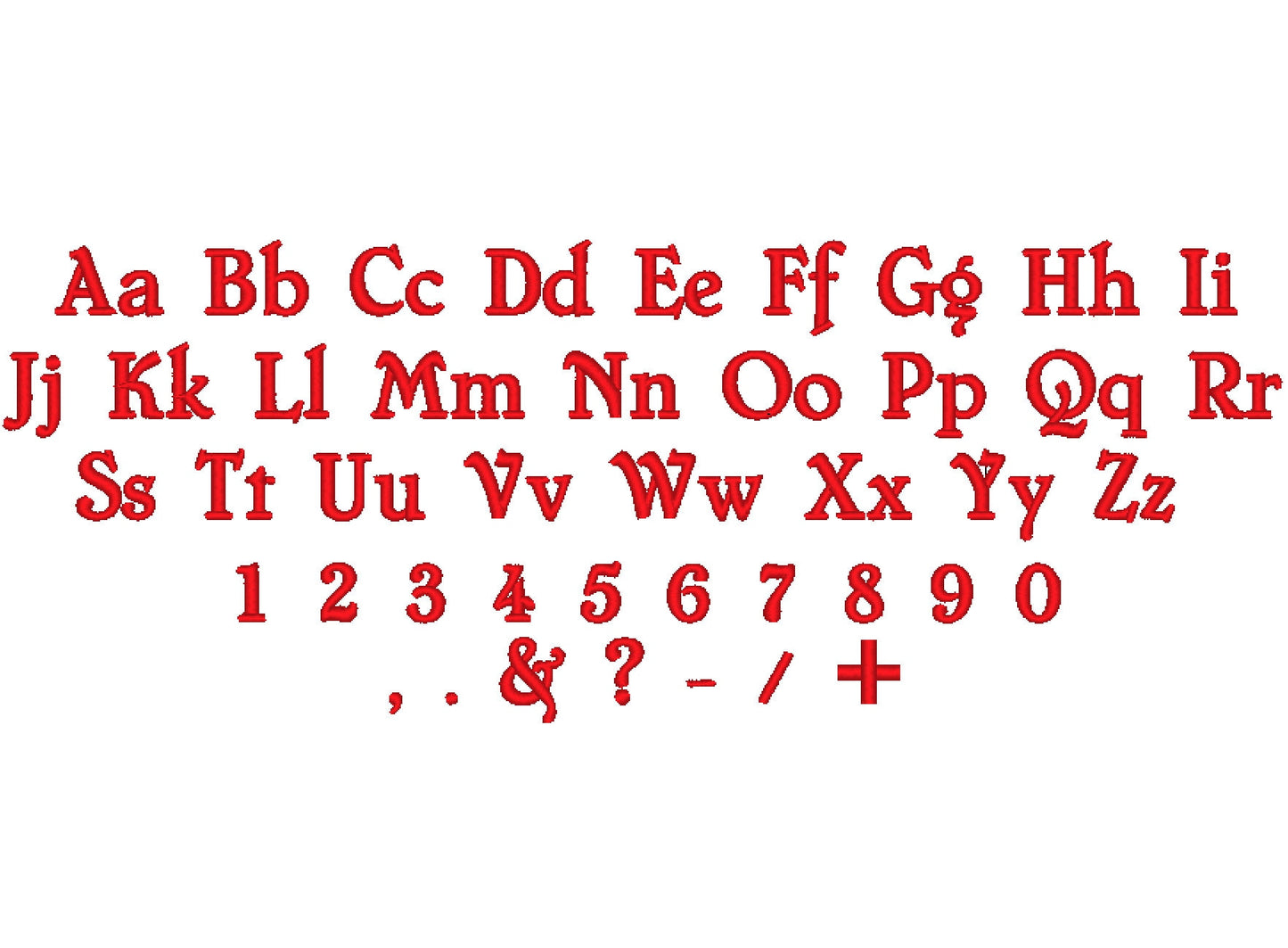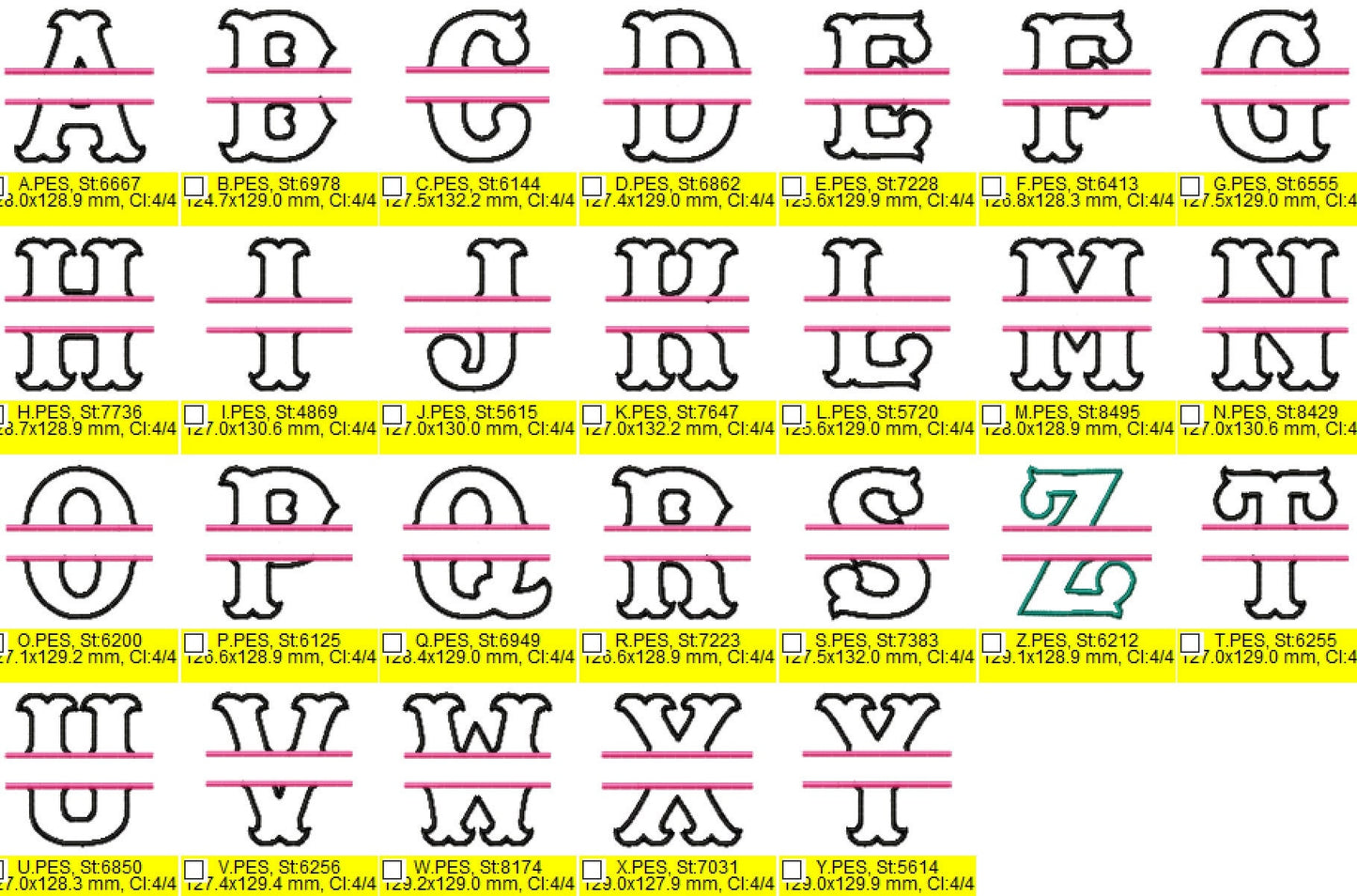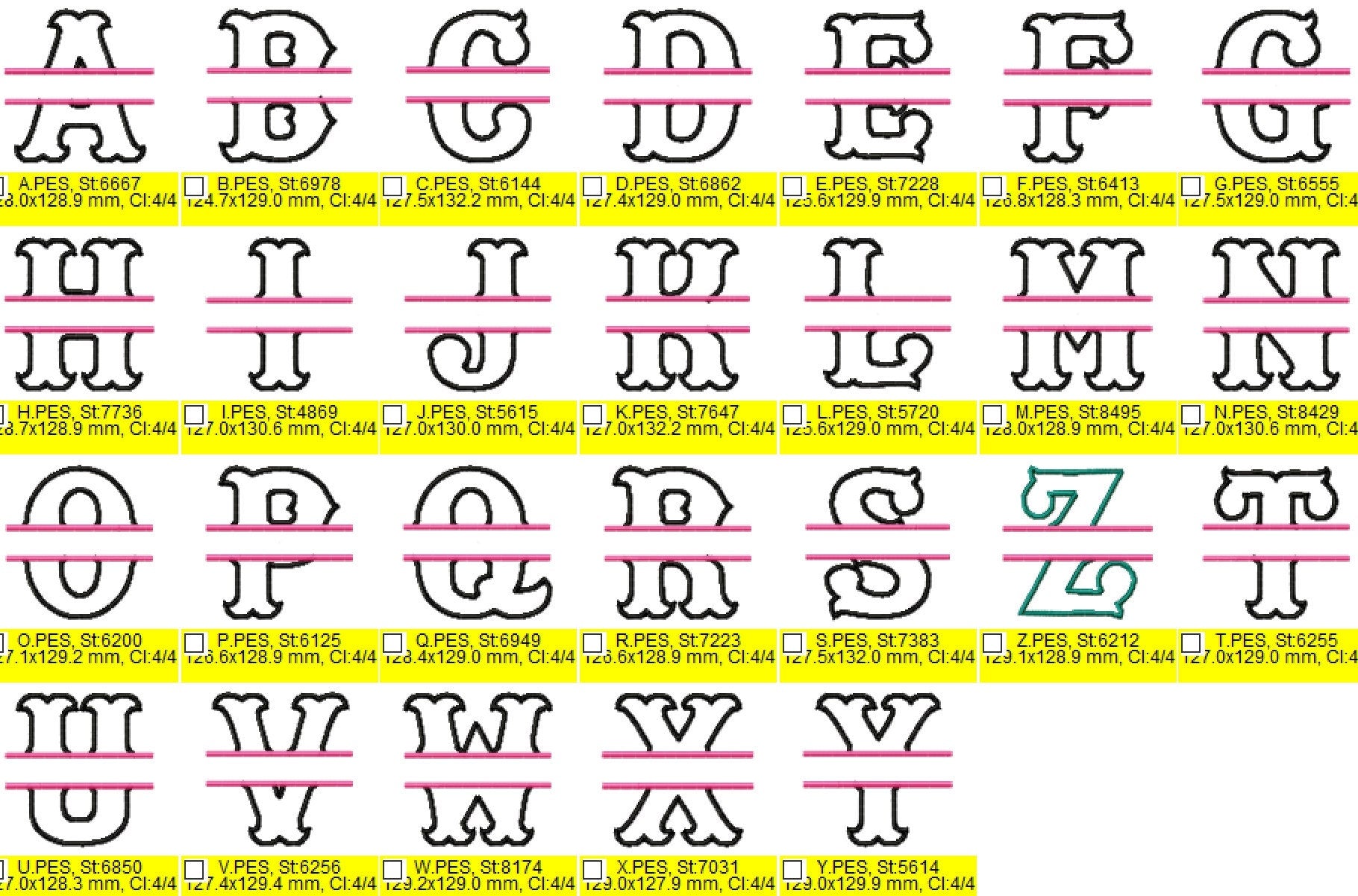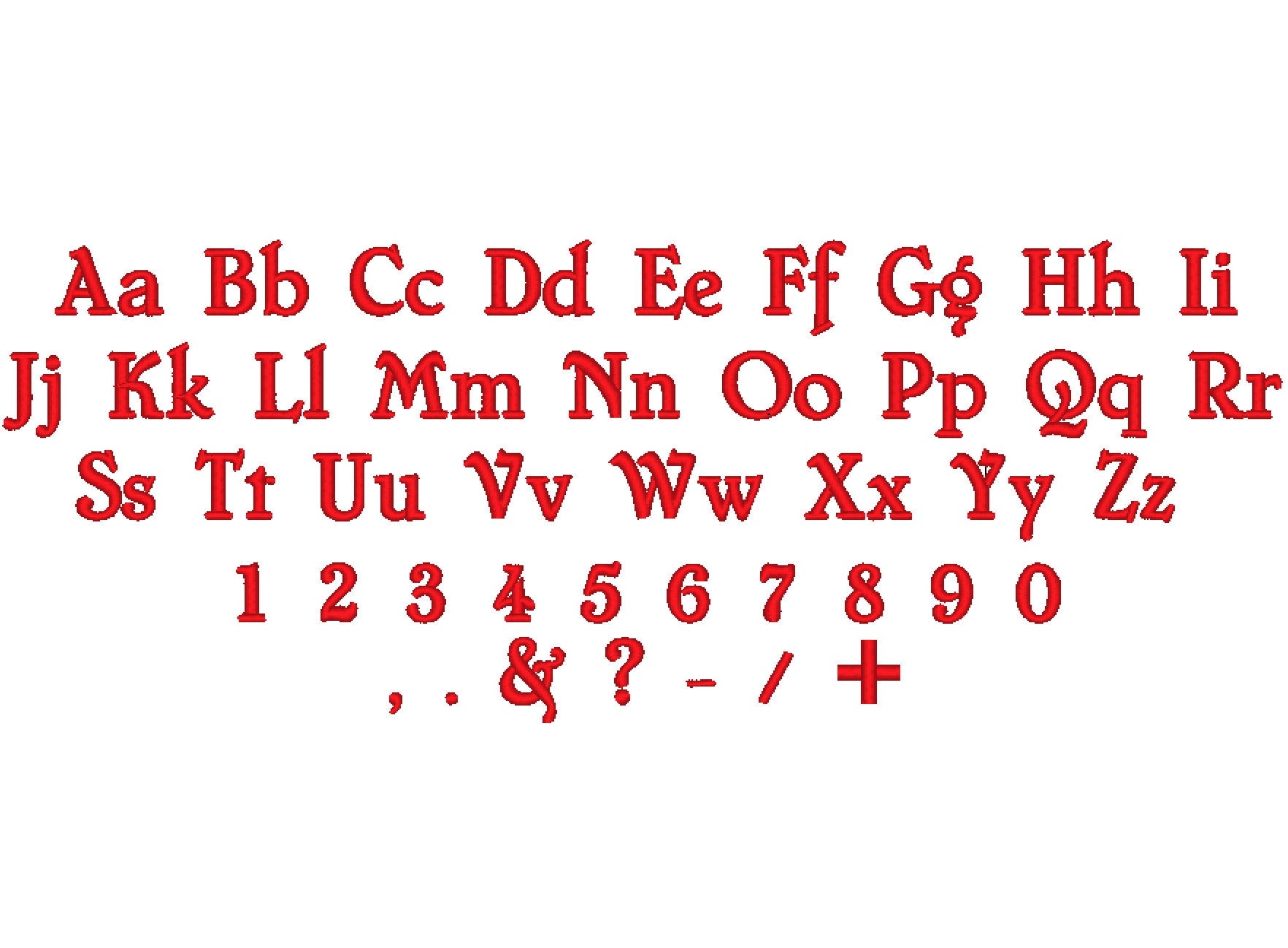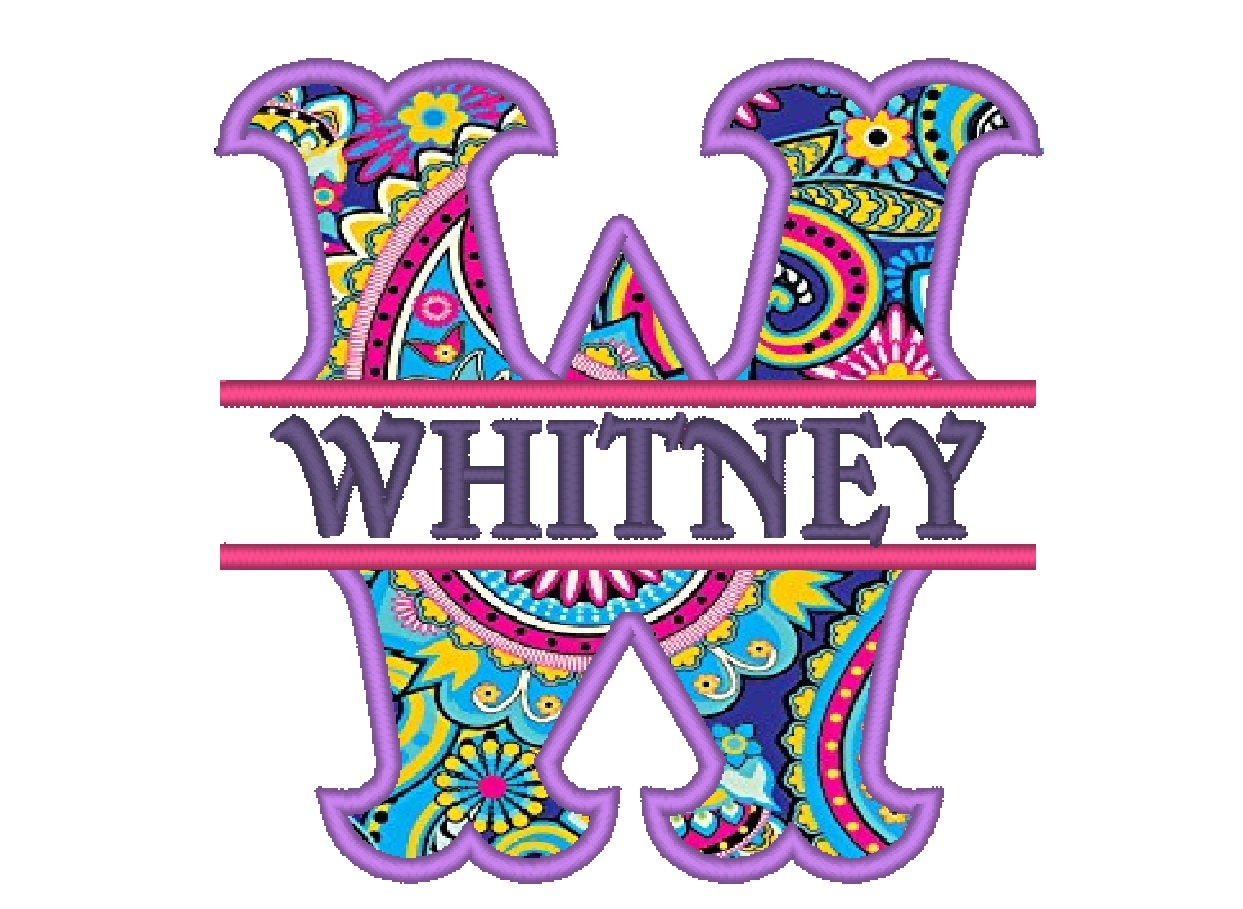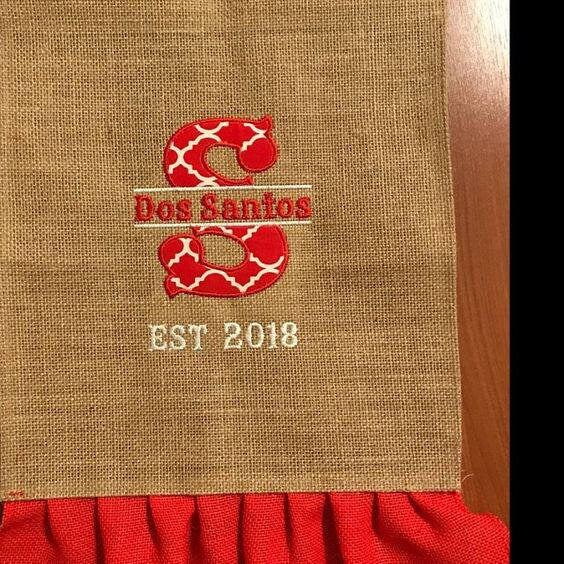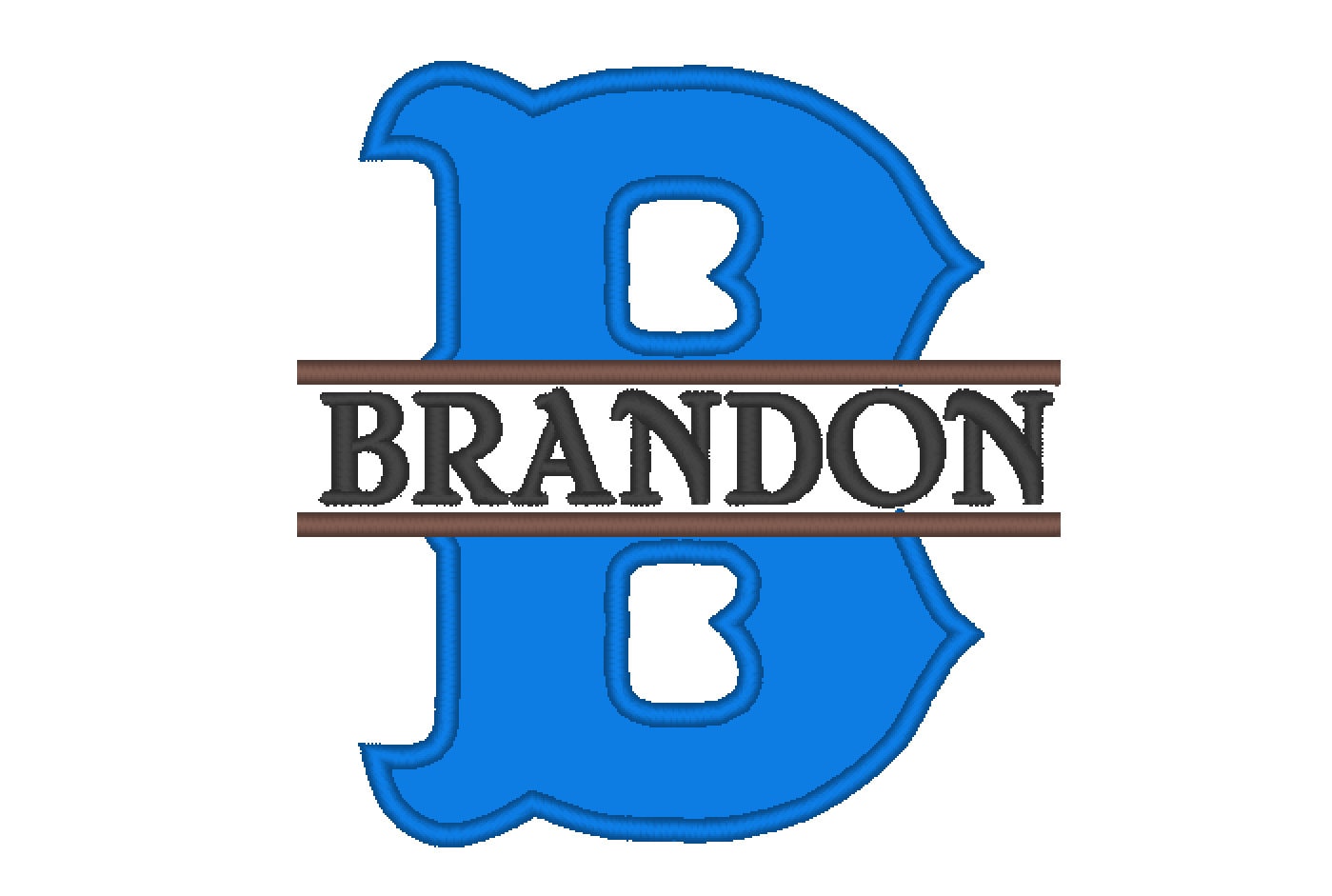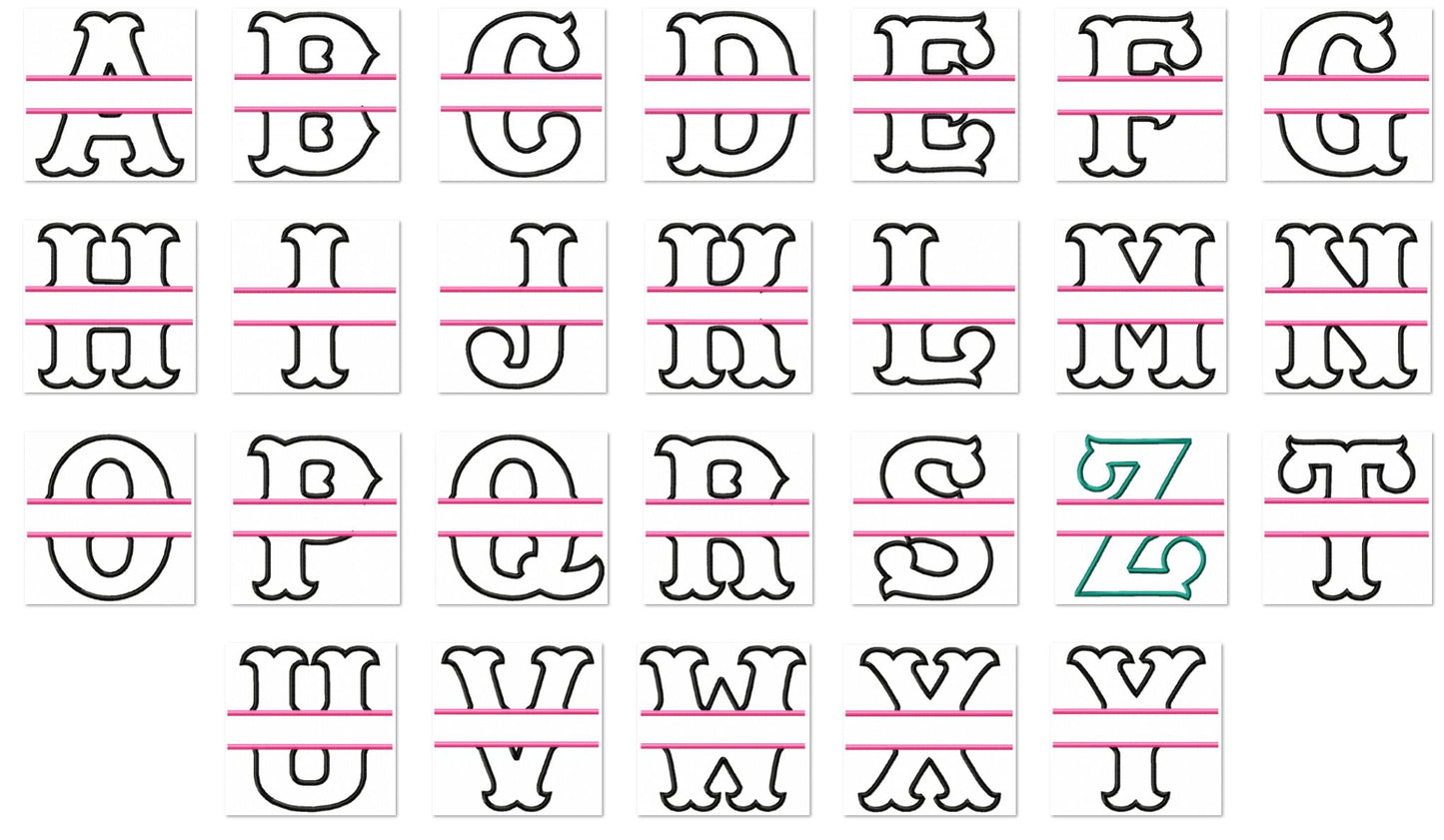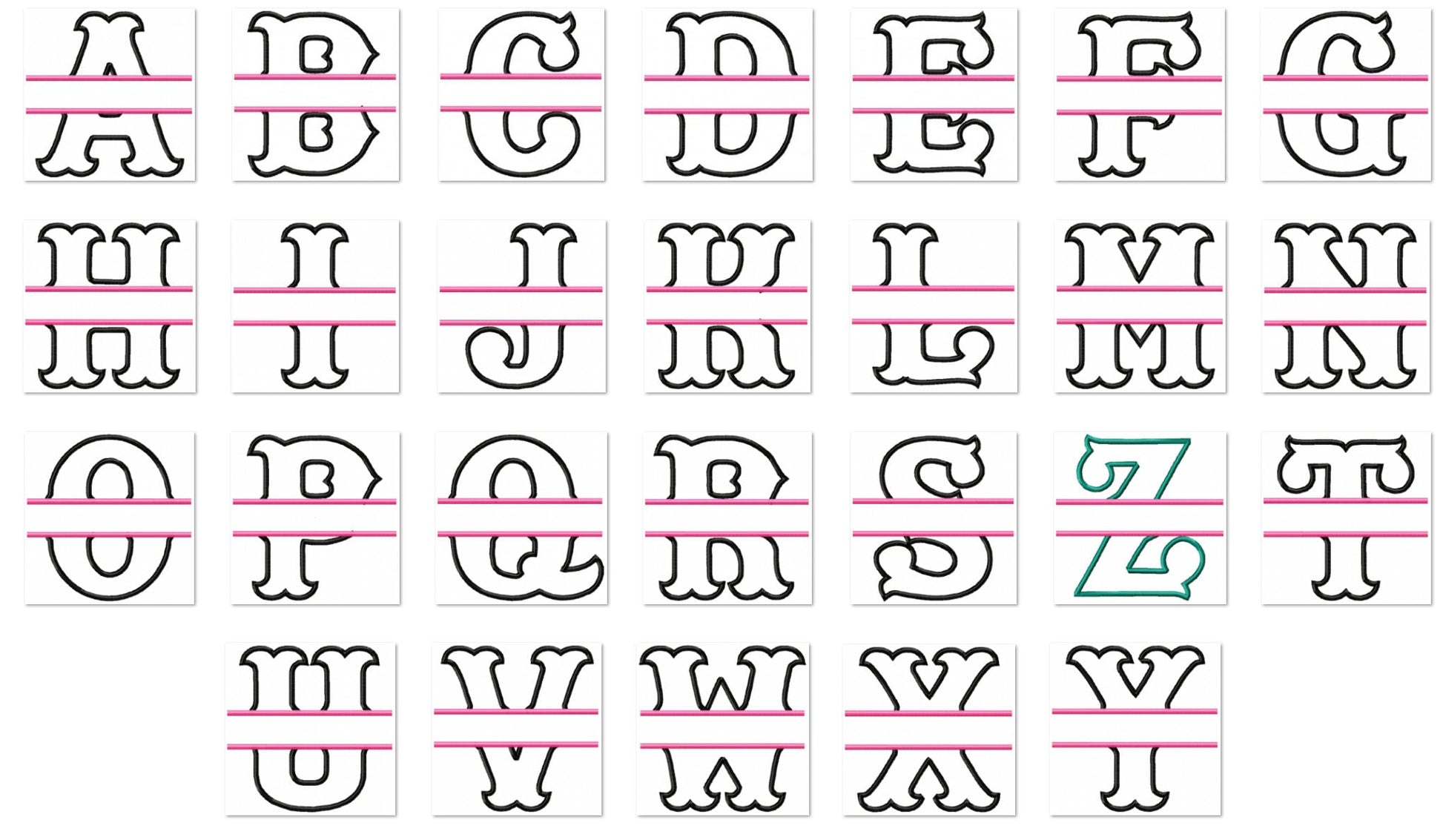
Thank you for the Split -`font embroidery appliqué. It looks great on my book bags for the kids.
BELLISSIMO
Ganz tolle Stickdatei
My clients absolutely love this applique. I've used it on several items including blankets.
Looks great! Wish I could get it smaller too!
I did this design on an apron for my niece for her birthday and she loved it.. Thanks
Love the designs. Will buy again.
Loved the way this came out! One of my favorite designs!!
Instant download! The letters stitch is very pretty.
Love this split font design! Perfect for the garden flags I've been using it on! Thanks again!
A nice, simple applique that stiches out beautifully!
Great font, shop owner great to work with.
Stitches beautiful !!!! Very nice!!!
l'originalité de l'ecriture,merci beaucoup pour ce travail
Beautiful design and stitches out perfect!
I used this on a burlap sign. It is one of my favorite projects. The font loaded easily and quickly. Great applique.
Loved it! Stitched out wonderfully!
loved the way this looks
Gorgeous font! Many thanks to you, will definitely do business with again. Thanks!
stitched out perfect - thank you.
Love it! Stitched out perfect!
Love the design for the baby boys - it is needed!
Very nice! Good for boys or girls!
Love this design, thanks so much!! I will be using it soon!!
What a great design and my projects have turned out great. Will definitely enjoy using this for future gifts.
Very nice when embroidered. Turned out cute.
Love this design...stitches out great!
great item sews out great